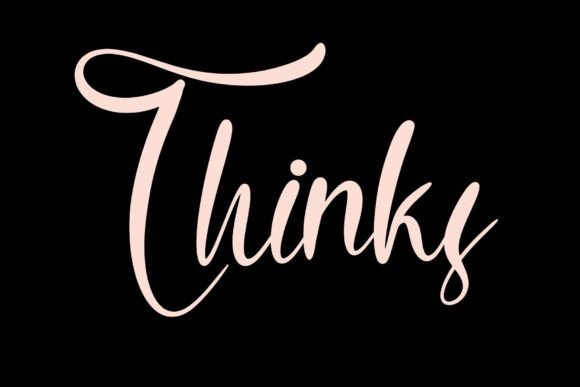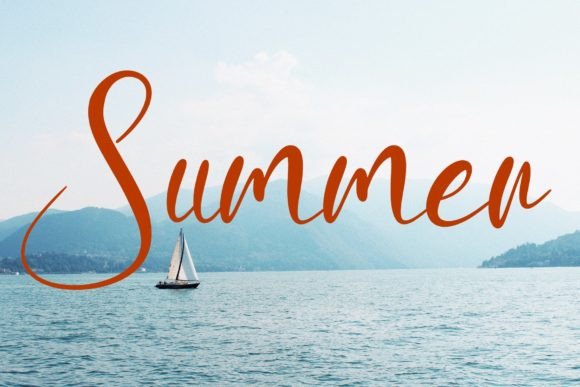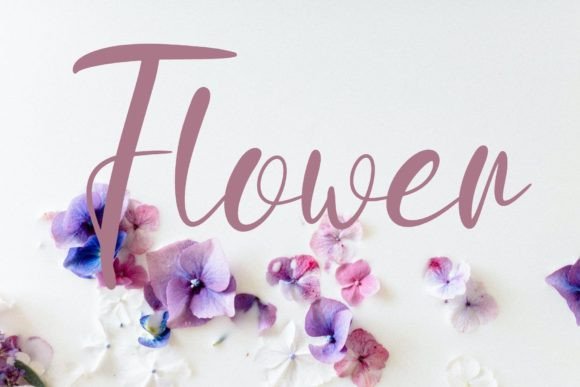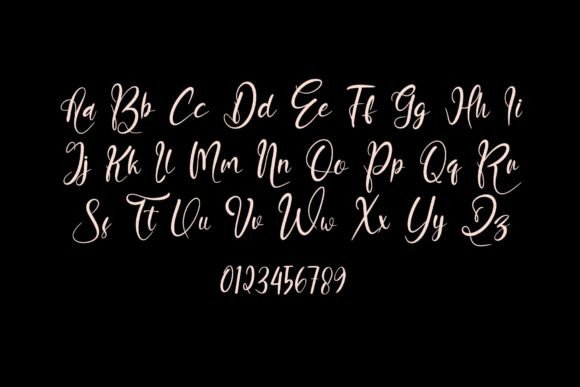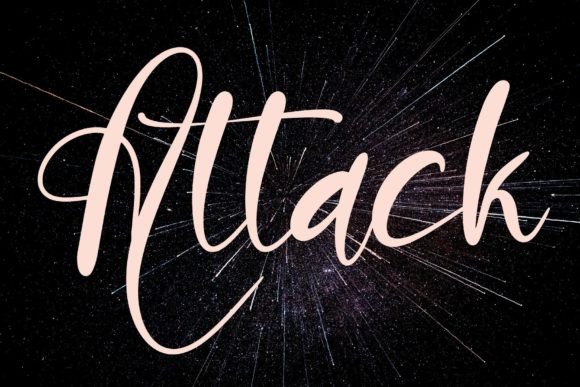
Introducing Attack Font: Elevate Your Designs with Elegance
Are you on the hunt for a font that adds a touch of sophistication and style to your designs? Look no further than Attack Font, a beautiful script font that is sure to make your projects stand out. With its clean, thin, and smooth vibe, Attack Font is the perfect addition to any design, from branding and advertising to crafting and DIY projects.
What Makes Attack Font So Special?
Attack Font is a stylish and delicate script font that boasts a unique combination of elegance and simplicity. Its thin lines and smooth curves create a beautiful, flowing effect that is both visually appealing and easy to read. Whether you’re looking to add a touch of whimsy to your designs or create a more formal, sophisticated look, Attack Font is the perfect choice.
Key Features of Attack Font
• Clean and Thin Design: Attack Font features a clean and thin design that is perfect for creating elegant and sophisticated designs.
• Smooth Vibe: The font’s smooth curves and lines create a beautiful, flowing effect that is both visually appealing and easy to read.
• Script Font Style: Attack Font is a script font, making it perfect for adding a touch of elegance and sophistication to your designs.
• Versatile: Attack Font is versatile and can be used for a wide range of design projects, from branding and advertising to crafting and DIY projects.
How to Use Attack Font in Your Designs
Attack Font is easy to use and can be incorporated into your designs in a variety of ways. Here are a few ideas to get you started:
• Branding and Advertising: Use Attack Font to create elegant and sophisticated branding and advertising materials, such as logos, business cards, and brochures.
• Crafting and DIY Projects: Add a touch of elegance to your crafting and DIY projects, such as handmade cards, gift tags, and scrapbooking pages.
• Digital Designs: Use Attack Font in your digital designs, such as social media graphics, blog posts, and website headers.
Tips for Getting the Most Out of Attack Font
Here are a few tips for getting the most out of Attack Font:
• Pair with Bold Fonts: Pair Attack Font with bold fonts to create a striking contrast and add visual interest to your designs.
• Use in Combination with Images: Use Attack Font in combination with images to create beautiful and visually appealing designs.
• Experiment with Colors: Experiment with different colors to find the perfect combination that complements your design.
Why Designers and Crafters Love Attack Font
Attack Font has quickly become a favorite among designers and crafters, and for good reason. Here are a few reasons why:
• Elegant and Sophisticated: Attack Font adds a touch of elegance and sophistication to any design, making it perfect for designers and crafters who want to create high-end looking projects.
• Easy to Read: The font’s smooth curves and lines make it easy to read, even at small sizes.
• Versatile: Attack Font is versatile and can be used for a wide range of design projects, making it a great addition to any designer’s or crafter’s toolkit.
Attack Font is a stylish and delicate script font that is sure to elevate your designs to the next level. With its clean, thin, and smooth vibe, Attack Font is the perfect addition to any design project. Whether you’re a designer, crafter, or DIY enthusiast, Attack Font is a must-have font that is sure to become a favorite.